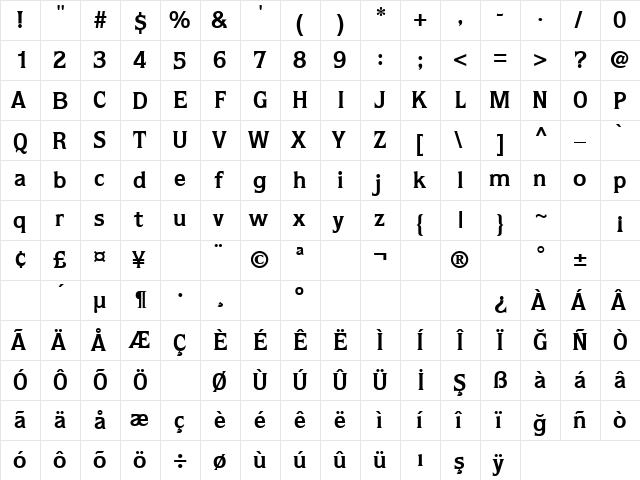
TR Doors Bold
Design Context for TR Doors Typeface
TR Doors offers clean, dependable letterforms without strong stylistic allegiance, making it a practical choice for designers who need flexibility. Its bold stroke weight gives it real presence on the page.